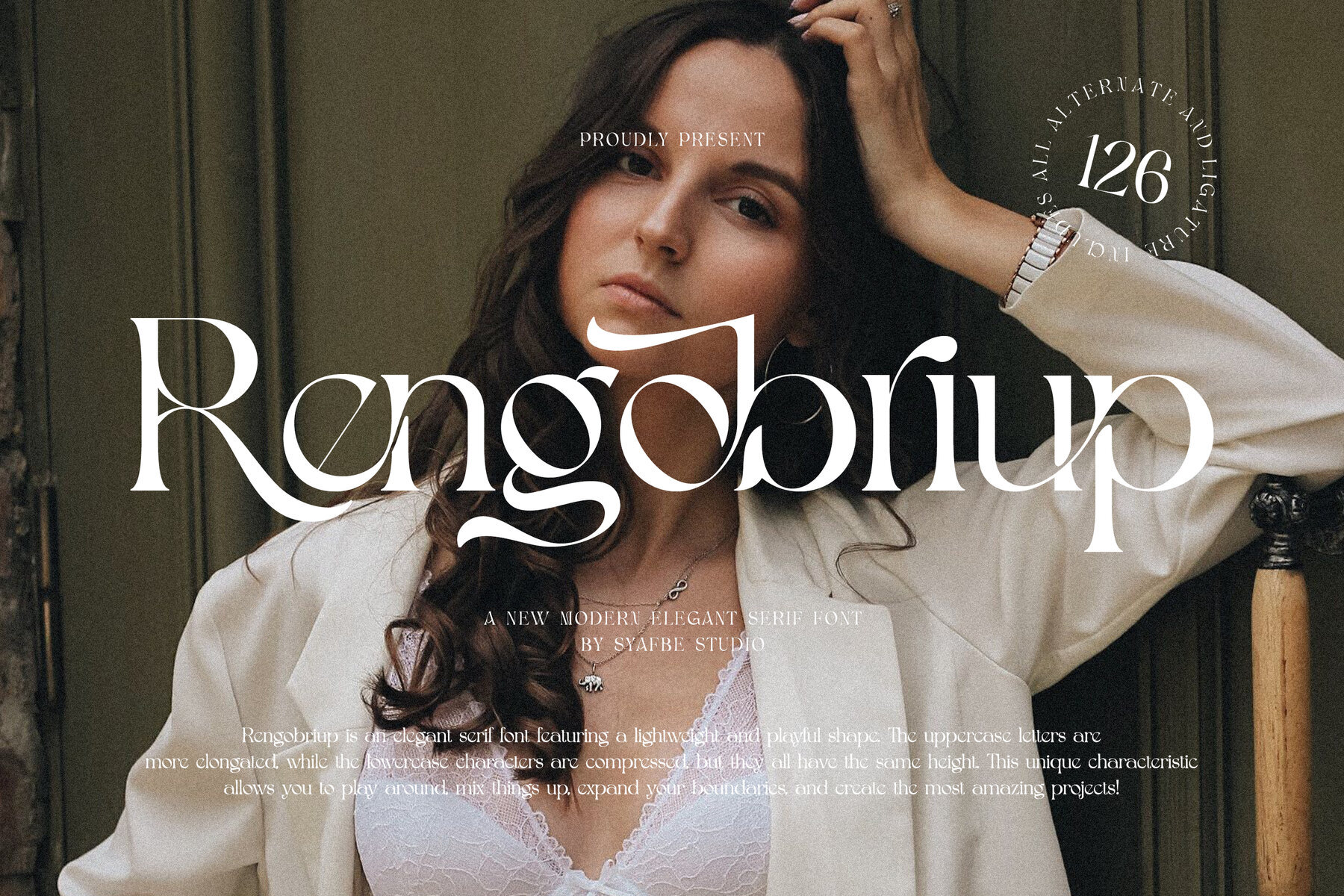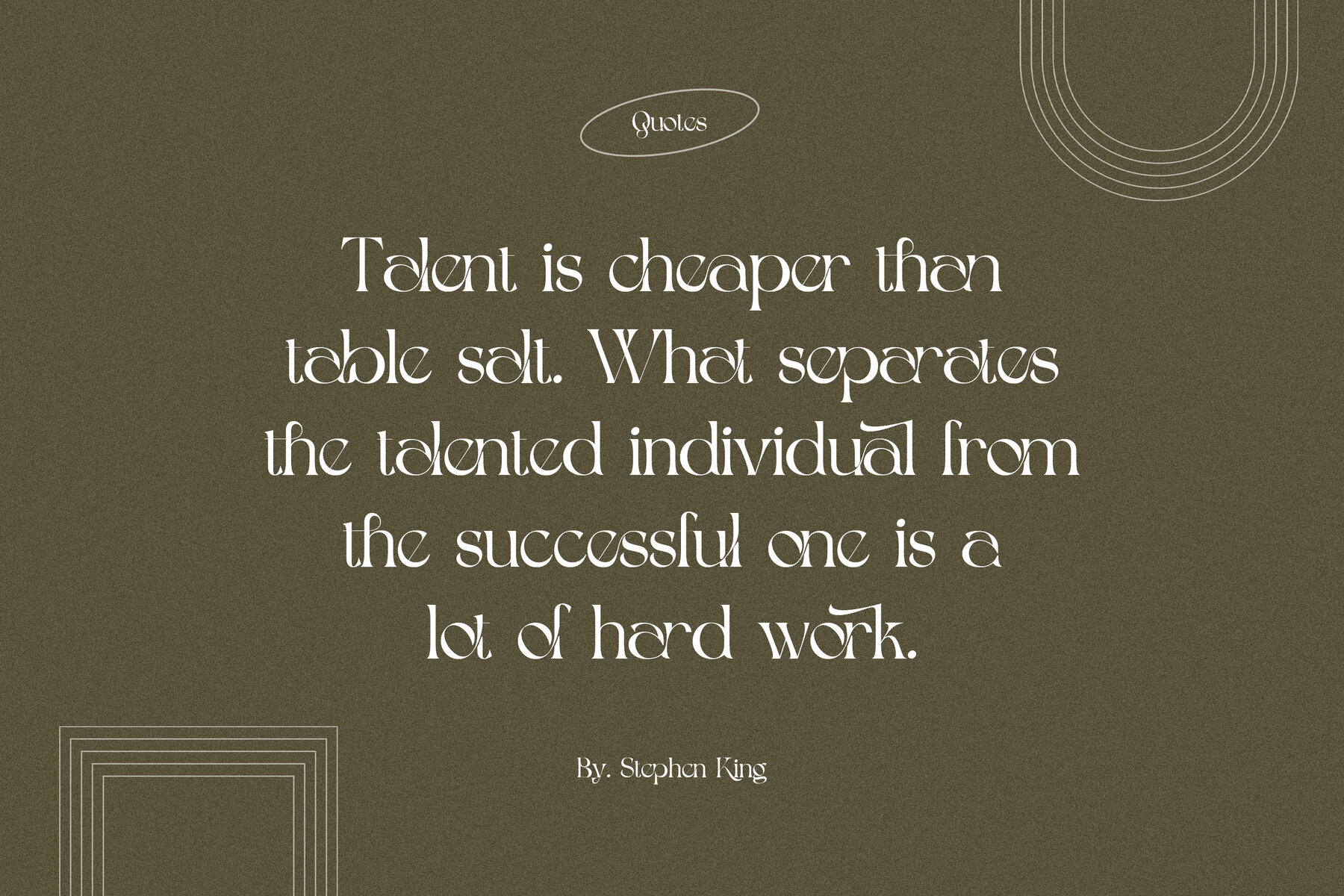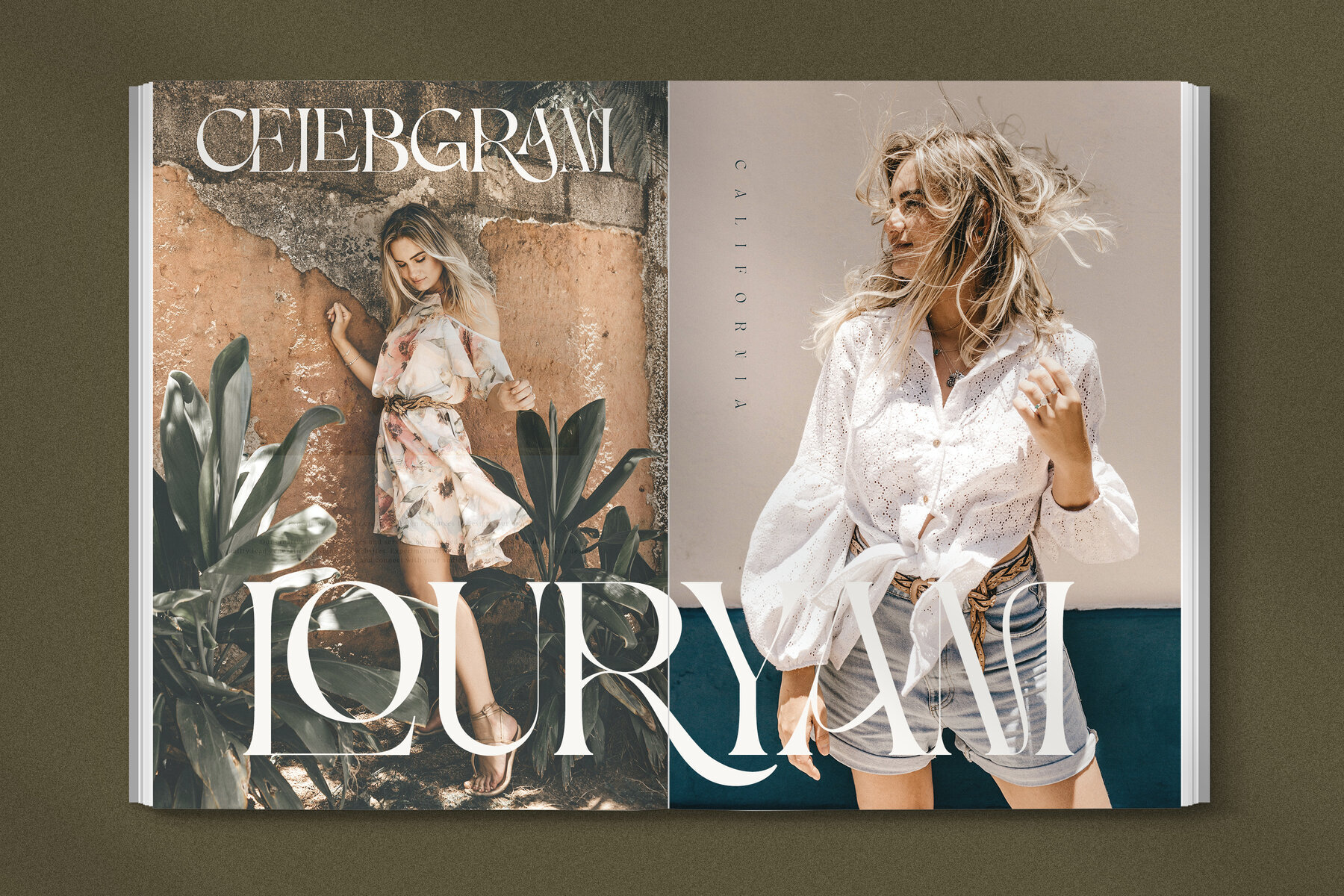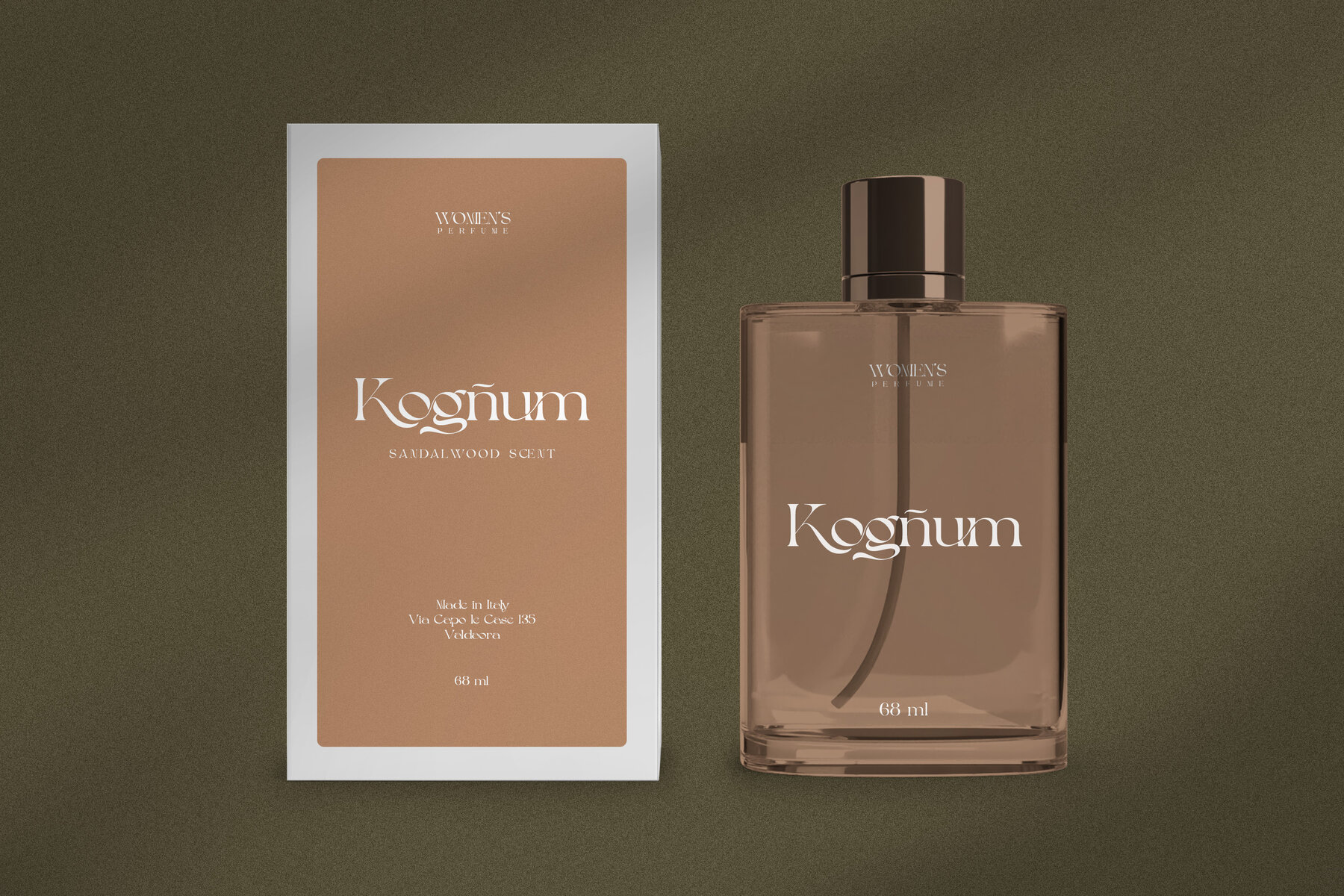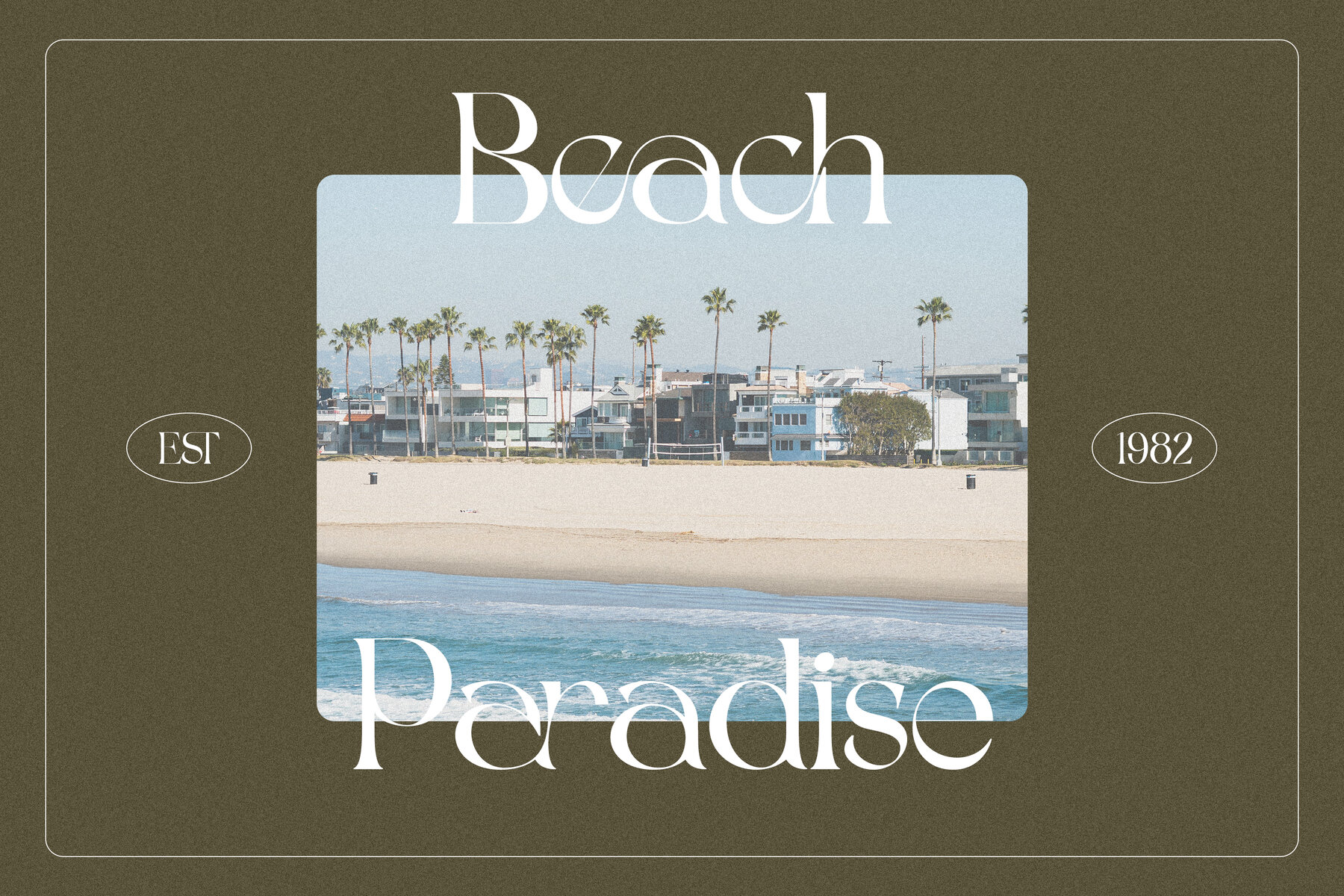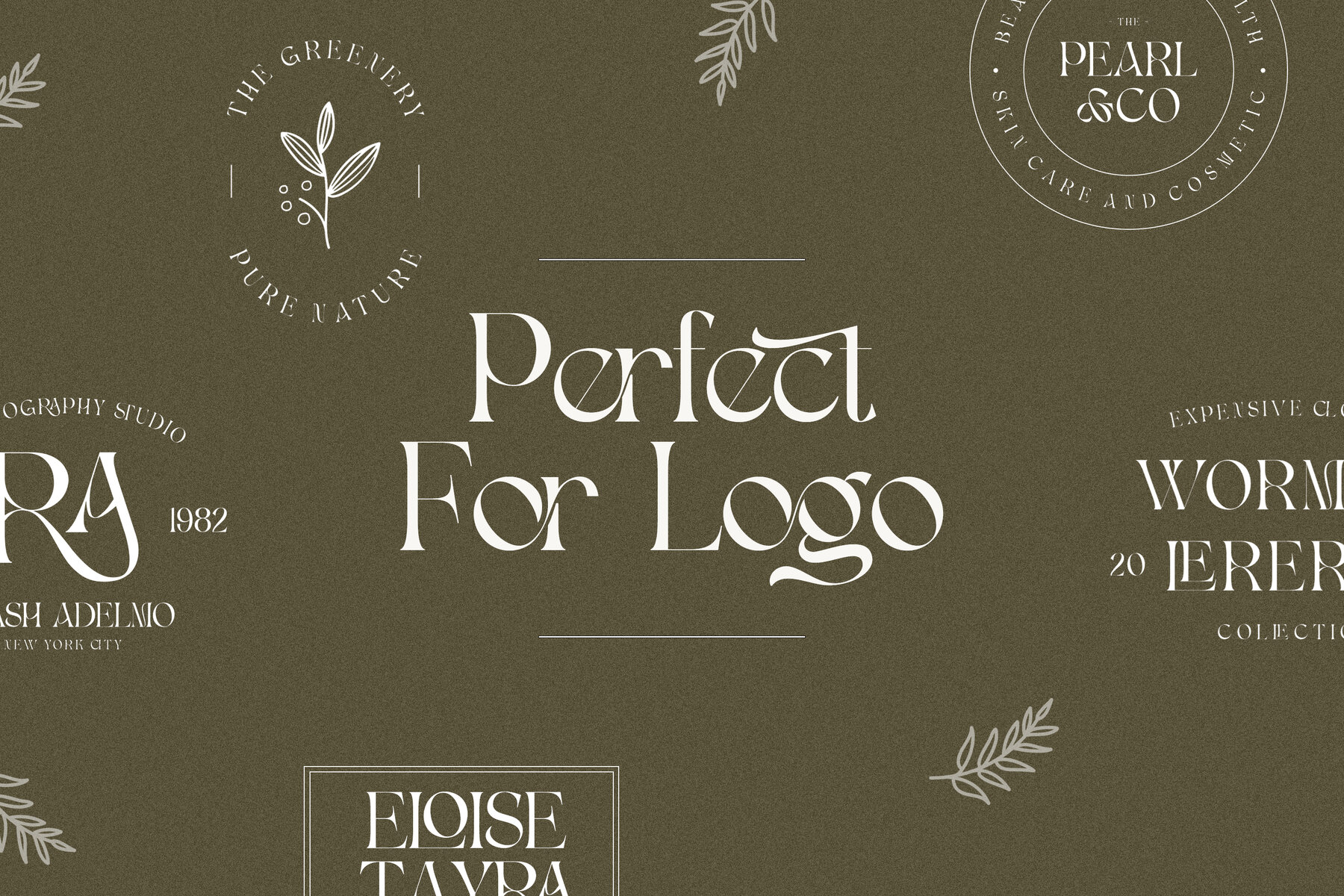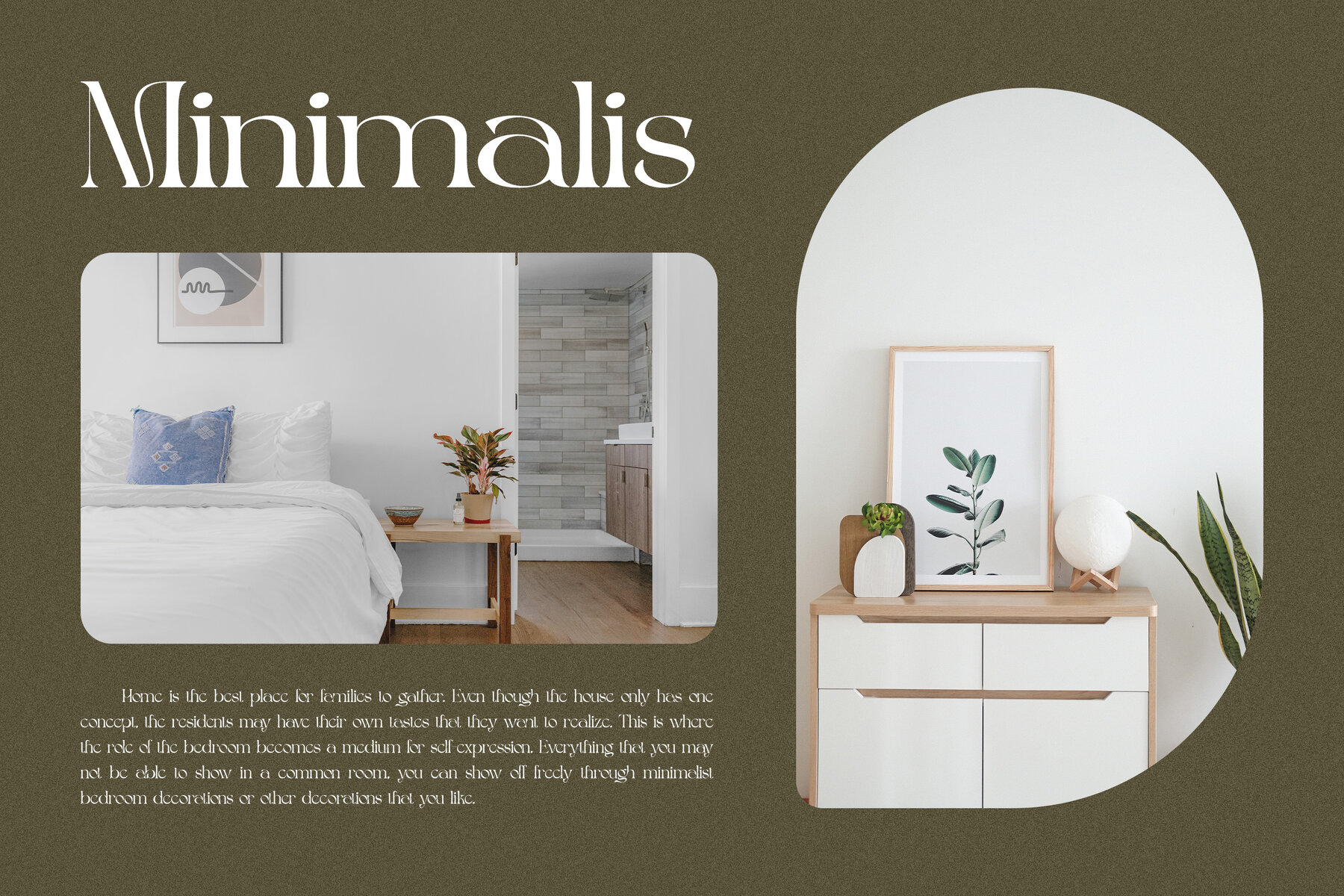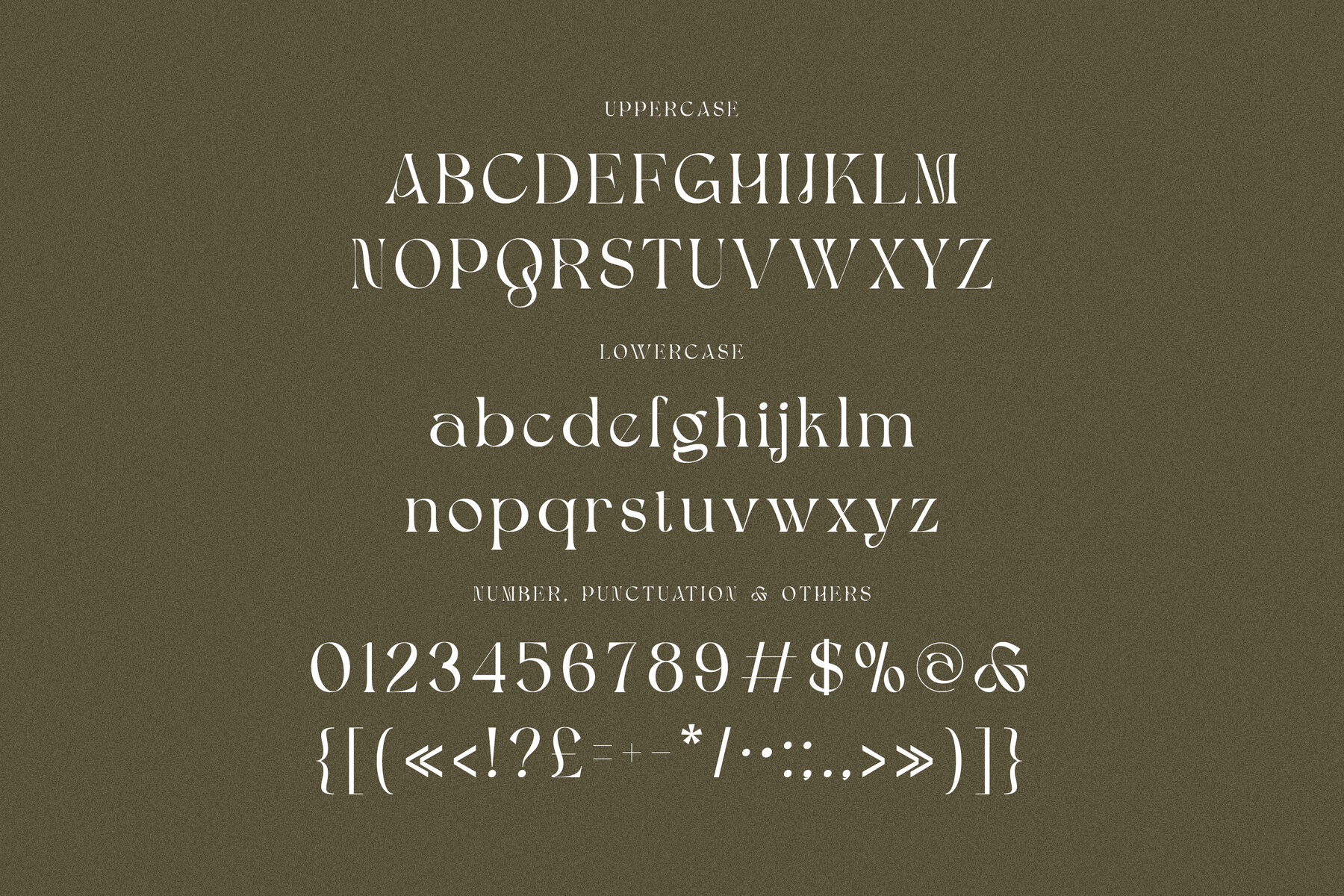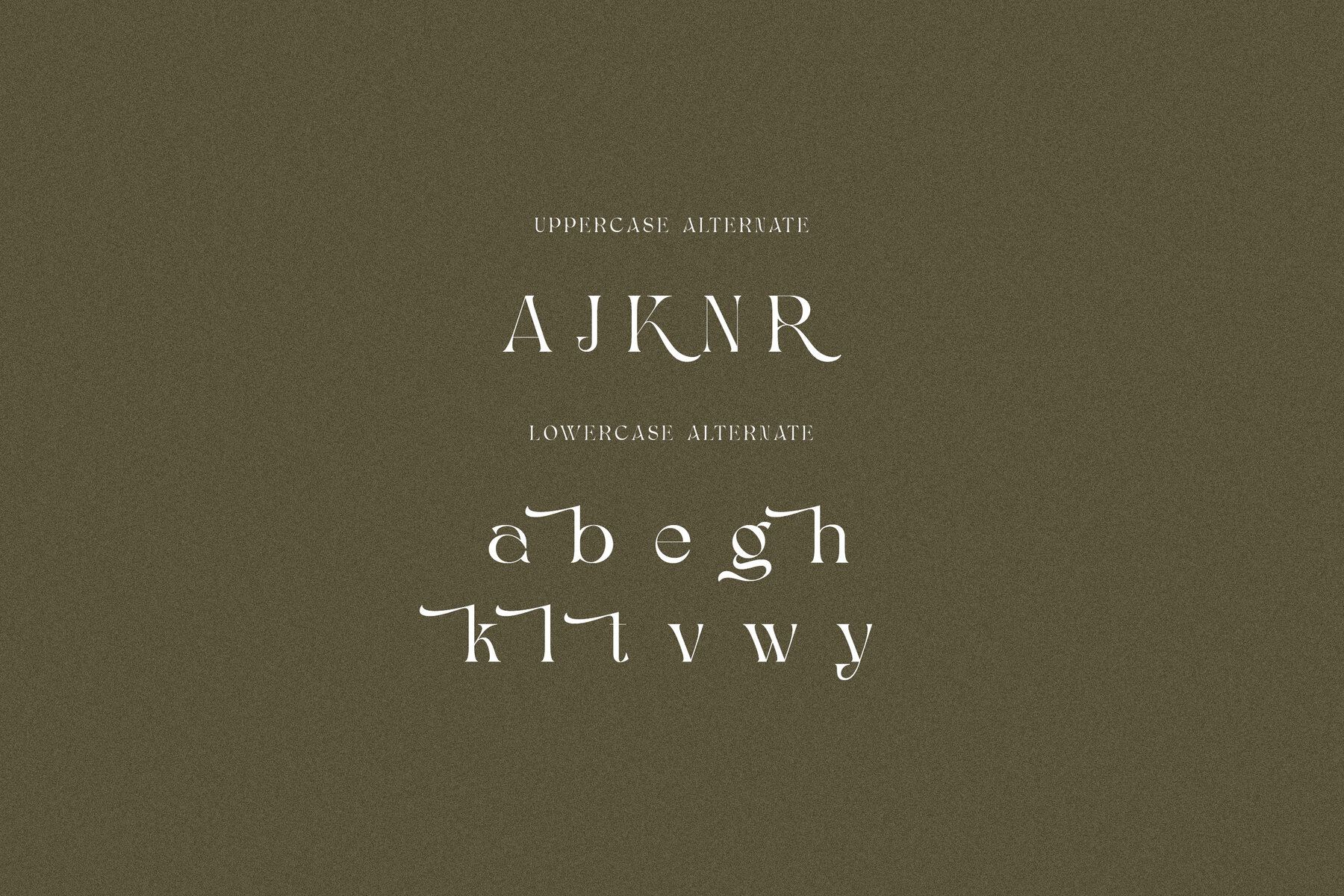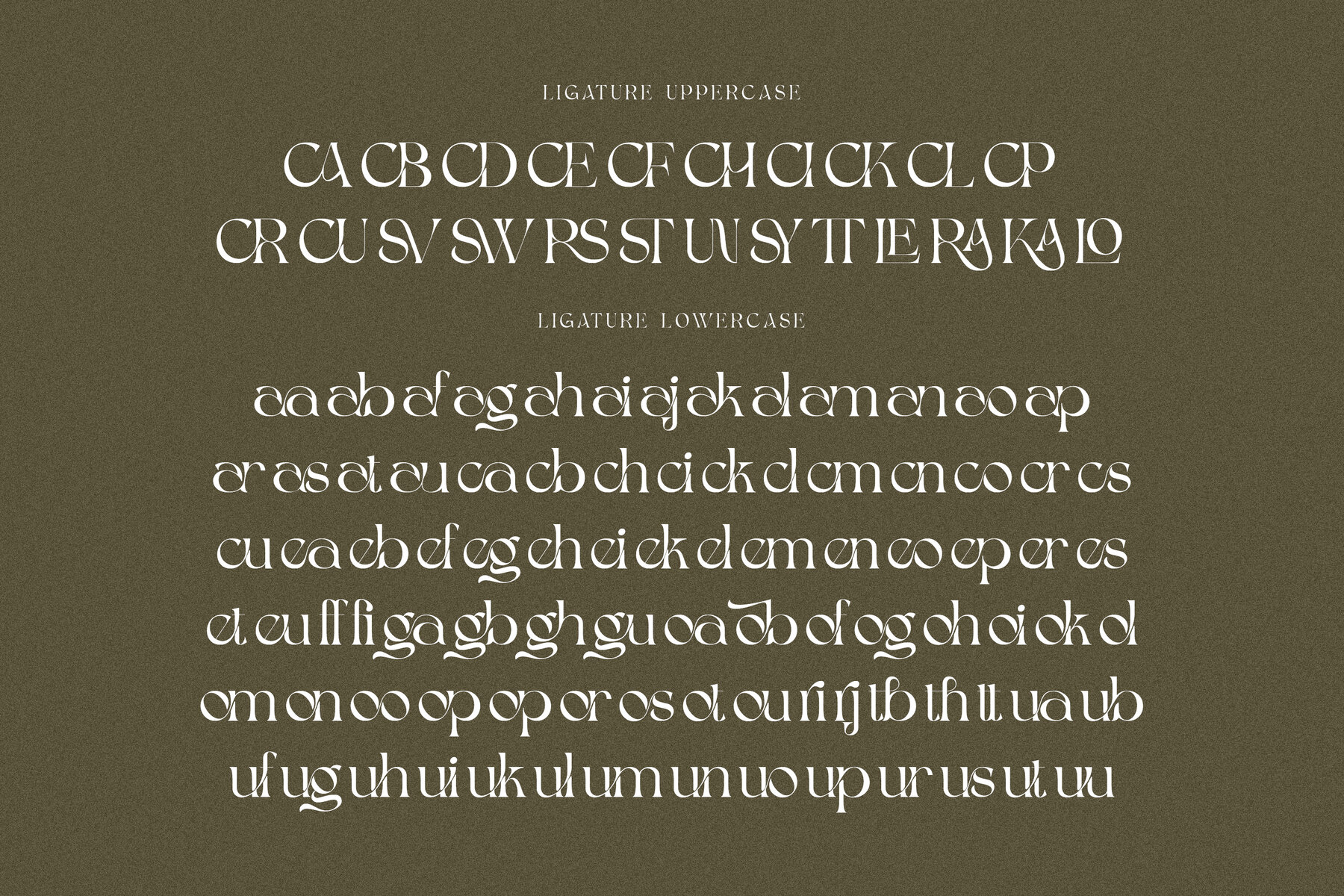
Rengobriup Font
Rengobriup Regular
Rengobriup font is a design masterpiece that unites elegance and simplicity into a captivating visual composition. With its slim and elegant serif form, this font radiates a sense of modernity while still honoring the classic traditions of typography. The compact uppercase letters convey strength and stability, yet still provide space for creativity through their long, flowing design. The philosophy behind this font’s design is the courage to play with boundaries—the compressed uppercase letters, all with the same height, give the impression that within order, there is freedom. Every element of this font encourages designers to push beyond conventional limits, explore untapped potential fearlessly, and create something fresh and exciting. Rengobriup is the perfect choice for various types of visual design, especially those that require an elegant and creative touch. This font is ideal for branding, logos, magazines, and advertisements, where a modern and stylish impression is necessary. With its unique and streamlined design, it is also perfect for packaging design, social media, invitations, and even corporate identities that aim to convey a luxurious and professional image. The beauty of this typography leaves a strong impression, building an unforgettable identity in every design project.